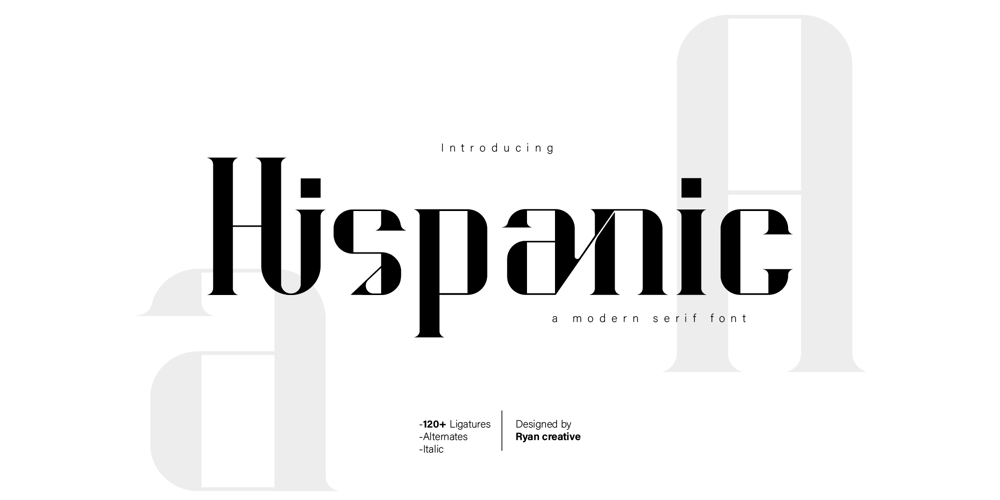
Hispanic Font Family was designed by ryan creative and published by ryan creative. Hispanic contains 2 styles and family package options. Introducing Hispanic fonts that have strong looking designs. In this font there is an additional taper at each end of the letter so that it seems more concentrated. Hispanic has more than 120 Ligatures that you can use in both modern and contemporary designs, and are suitable for use in a variety of fashion media, posters, model magazines, typography, promotions and other digital media.FEATURES; Uppercase and lowercase letters. Support Foreign, Numbers and Punctuation. Alternative, Ligatures Regular & Italic. Works on PC. Simple installation. Accessible in Adobe Illustrator, Adobe Photoshop. Adobe InDesign, it even works in Microsoft Word. Fully accessible without additional design software. Hispanic is encoded with Unicode PUA, which allows full access to all additional characters without having to design any special software. Mac users can use the Font book, and Windows users can use the Character map to view and copy any extra characters to paste into your favorite text editor/app.Thank you for visiting, Have a nice day;)